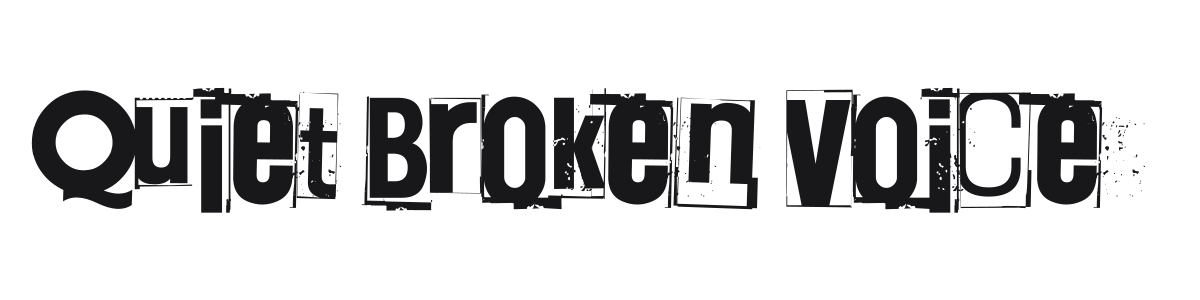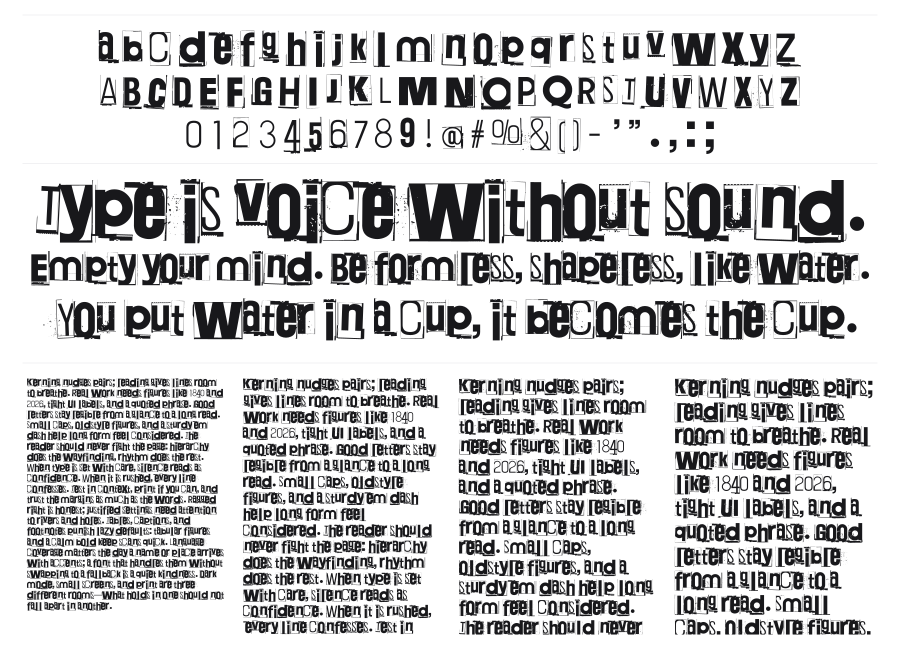
Quiet Broken Voice
Quiet Broken Voice is a cut-and-paste ransom note font by junkohanhero that looks like letters torn from different printed sources and slapped onto the page. Every character is a different size, weight, and style, with grunge marks, rough borders, and uneven baselines reinforcing the anarchic collage effect. The result hits hard at large sizes for posters, covers, and any project that needs visual tension.